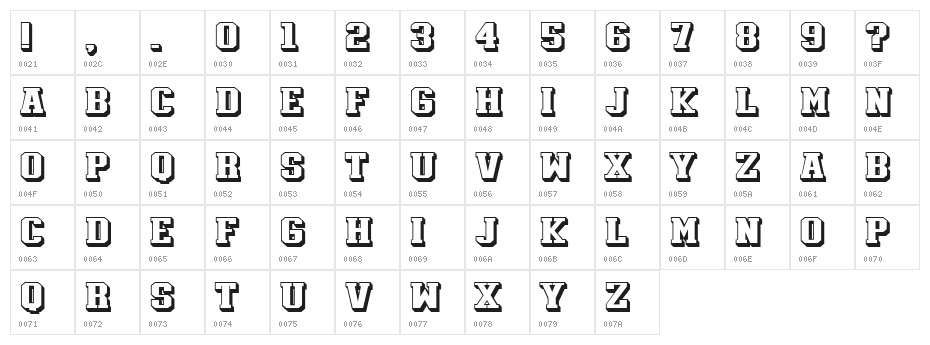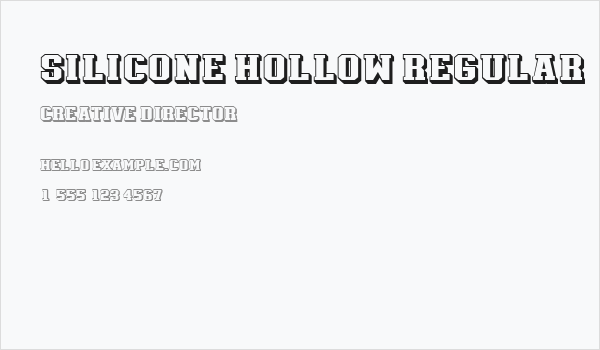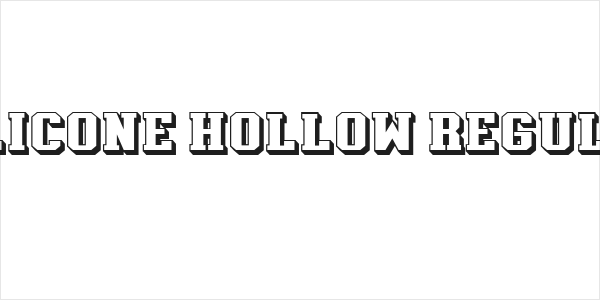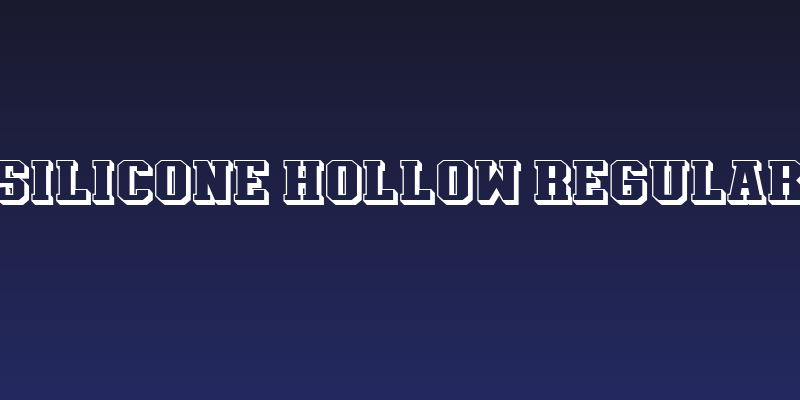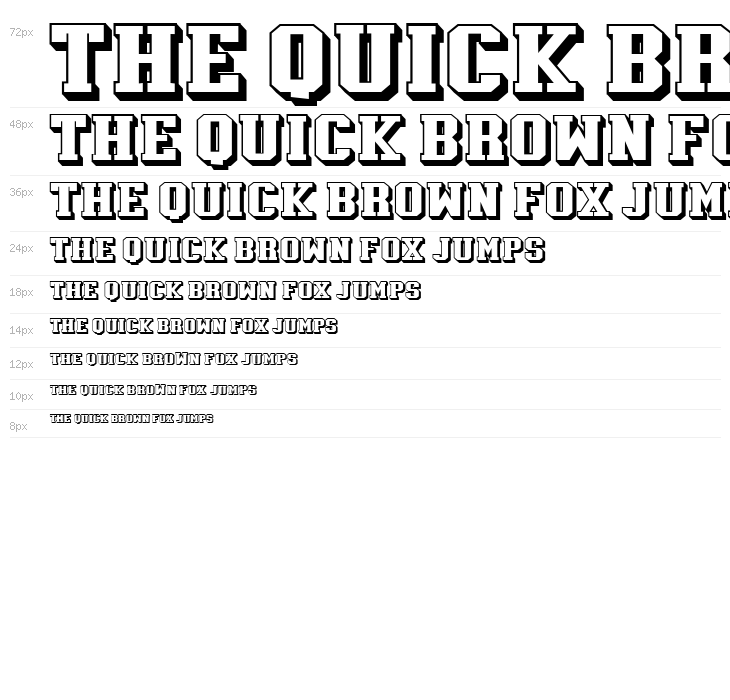
Silicone Hollow Regular Font
Silicone Hollow Regular Description
This font features a bold, hollow design with a strong geometric structure. The characters are outlined with a thick border, creating a striking contrast between the filled and unfilled spaces. The uppercase letters are particularly prominent, with sharp angles and a blocky appearance that conveys a sense of strength and stability. The numbers and special characters maintain this bold aesthetic, ensuring consistency across all elements. This font's unique style makes it ideal for eye-catching designs where a strong visual impact is desired.